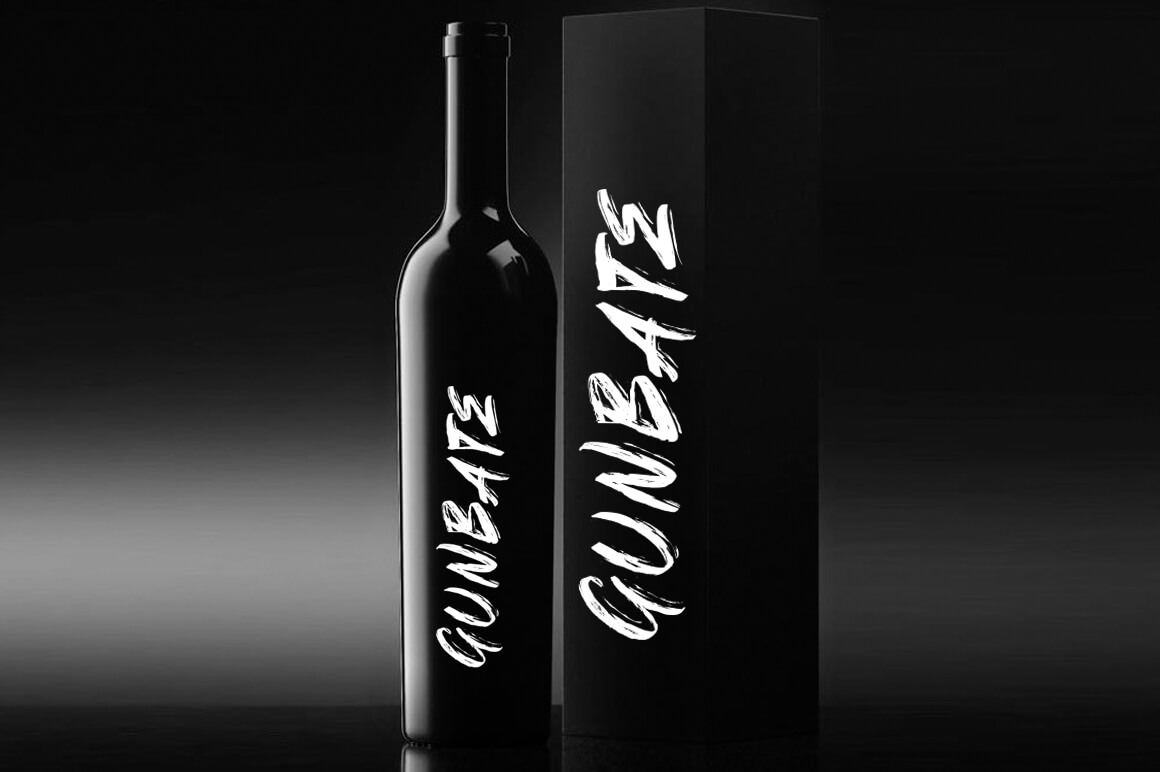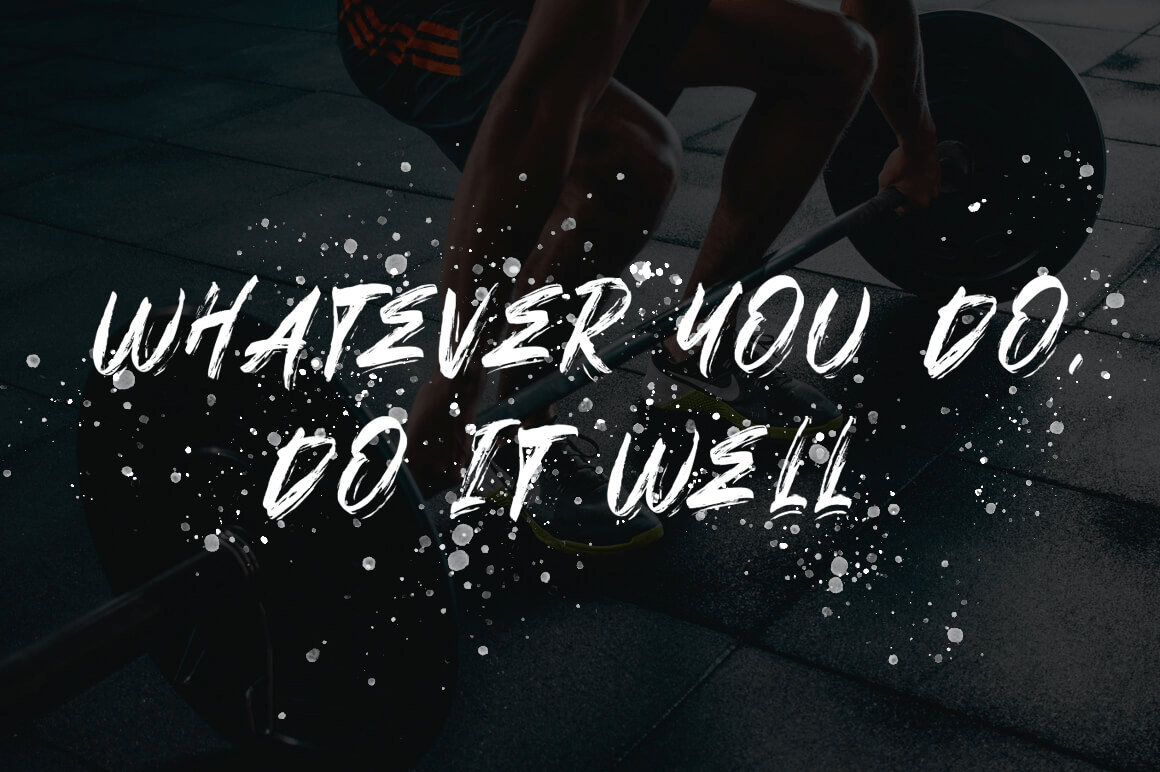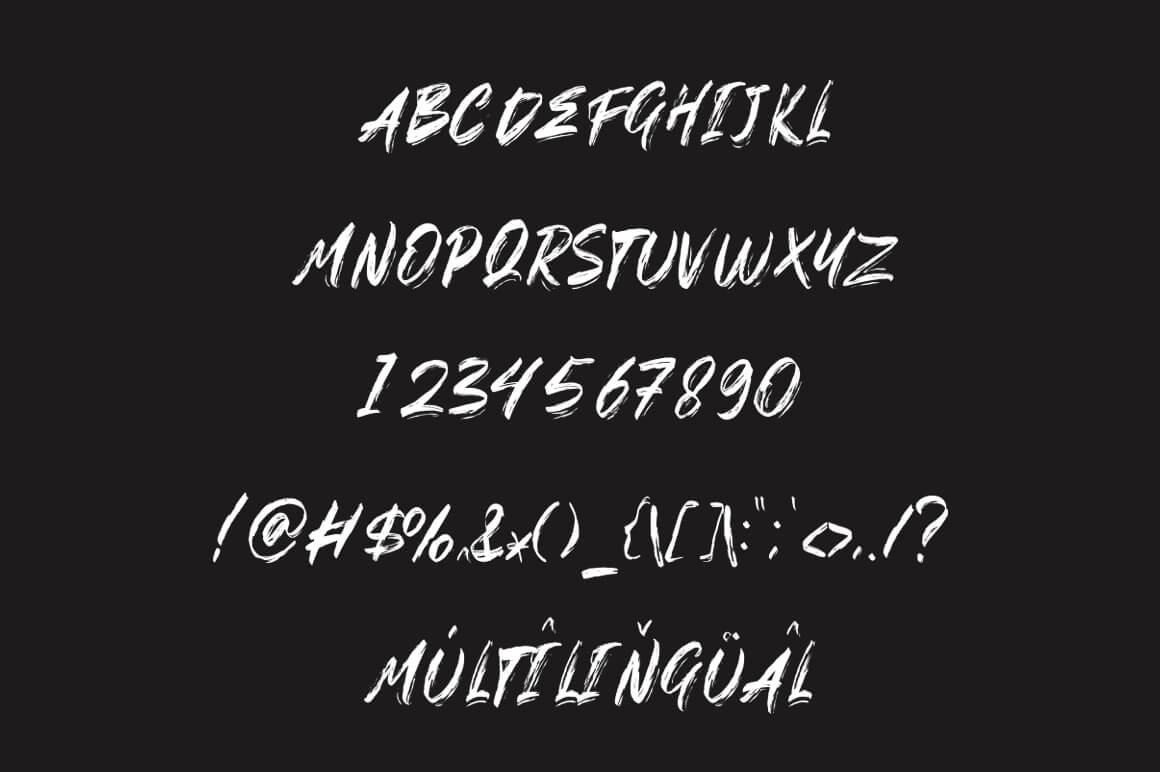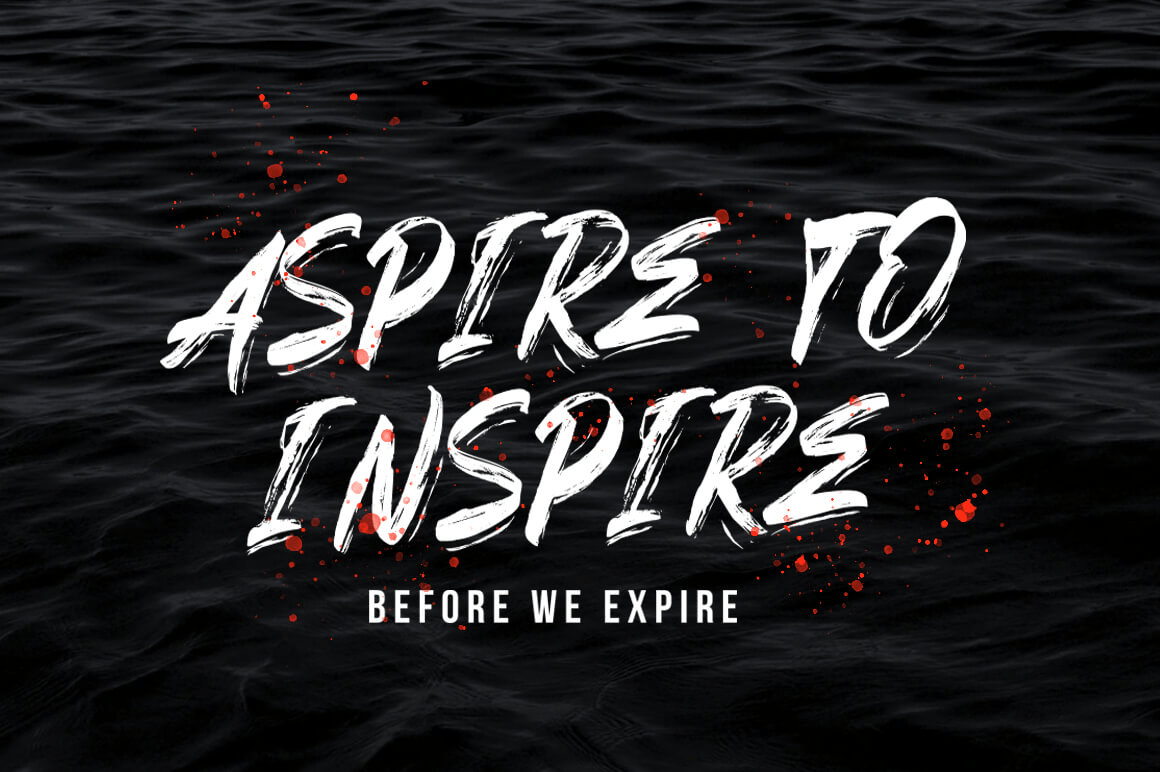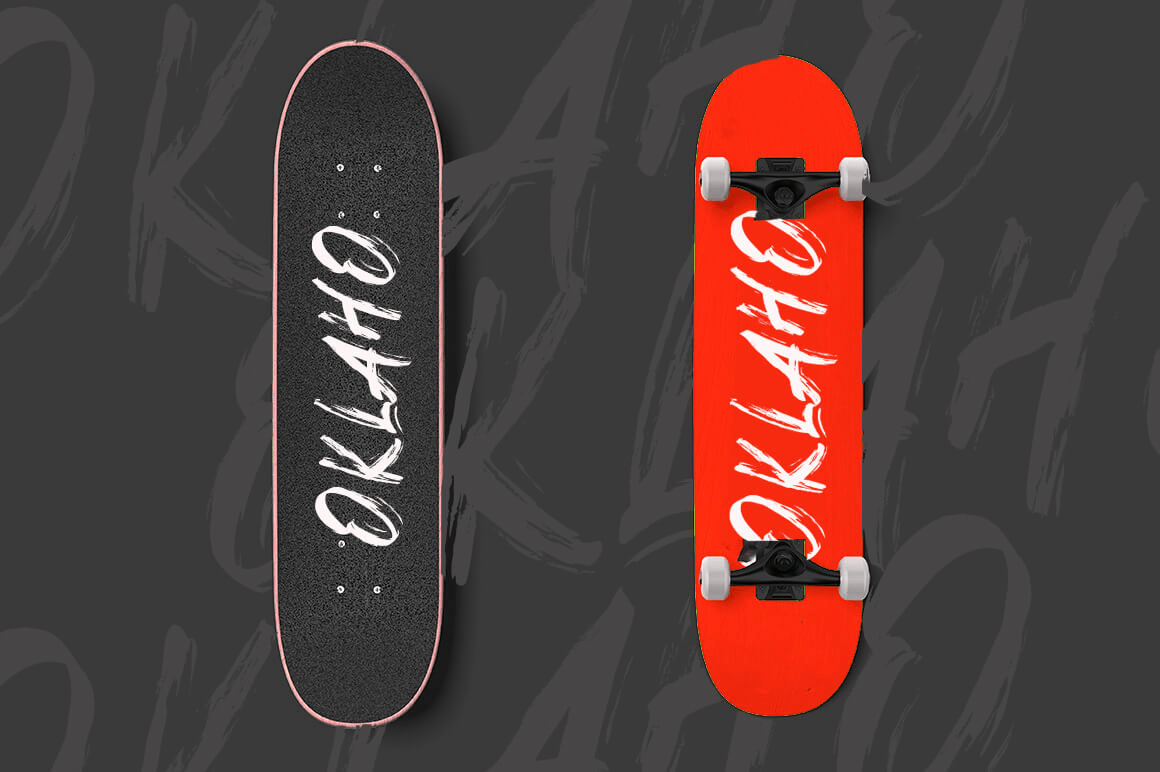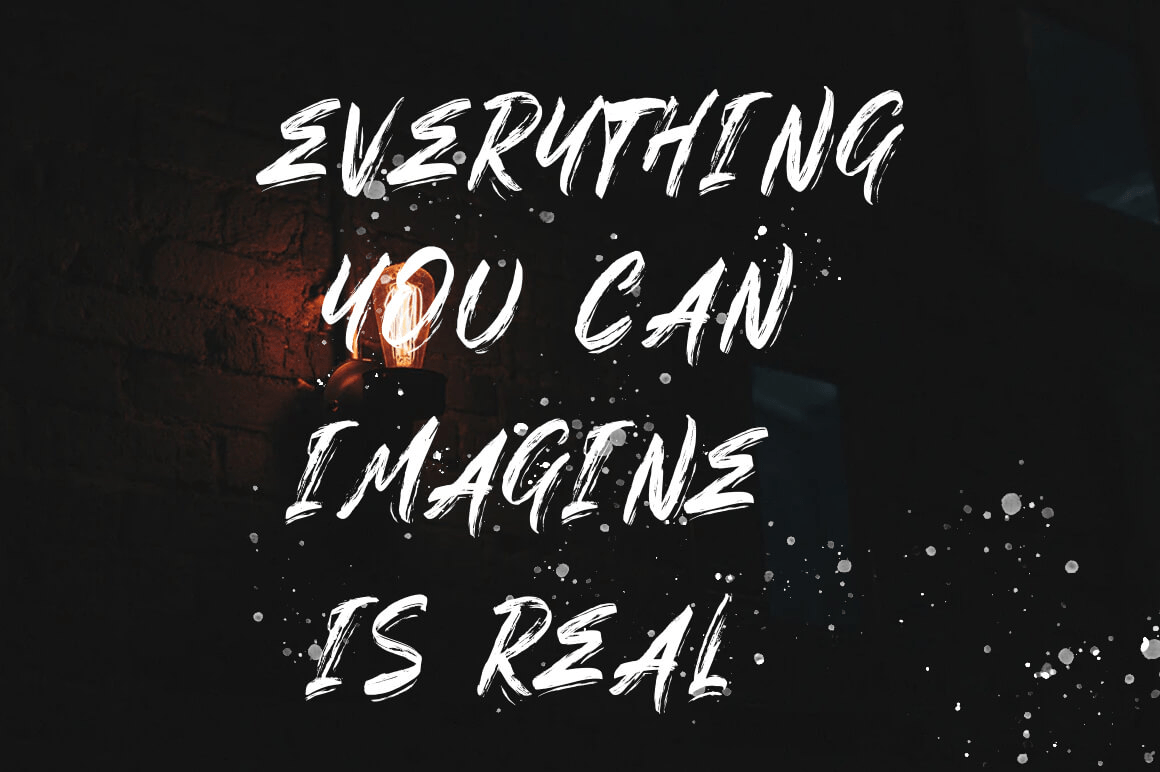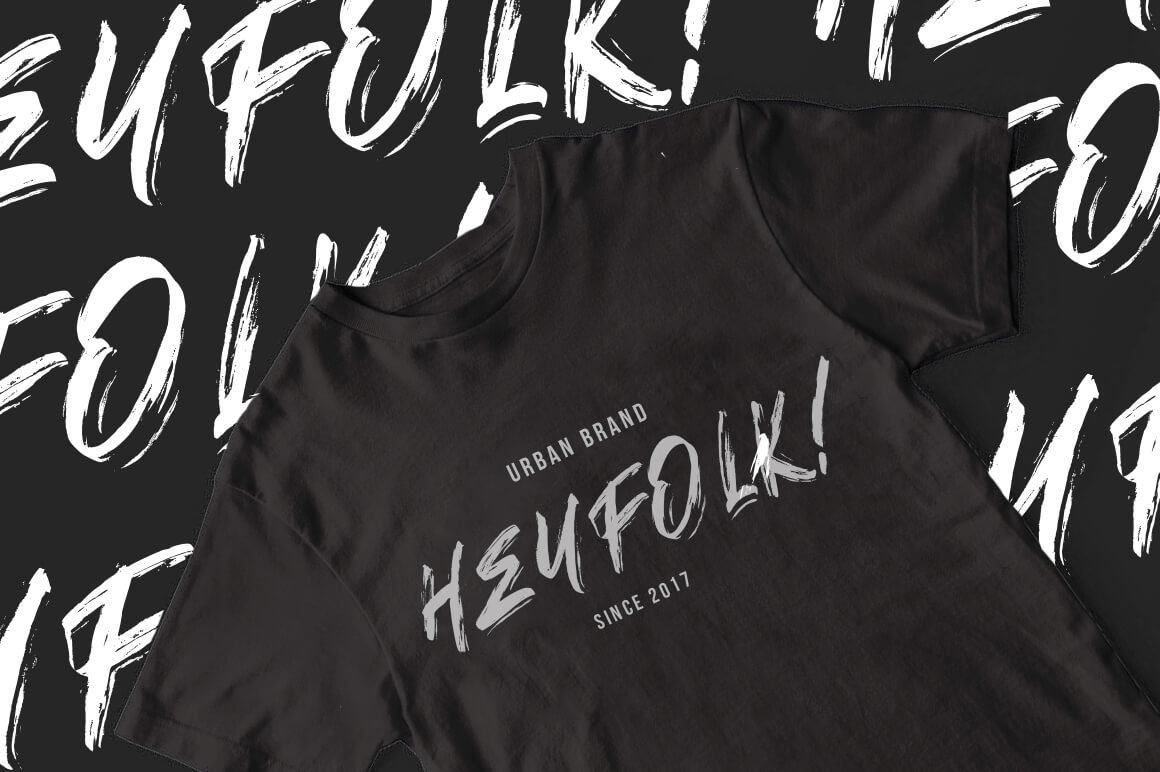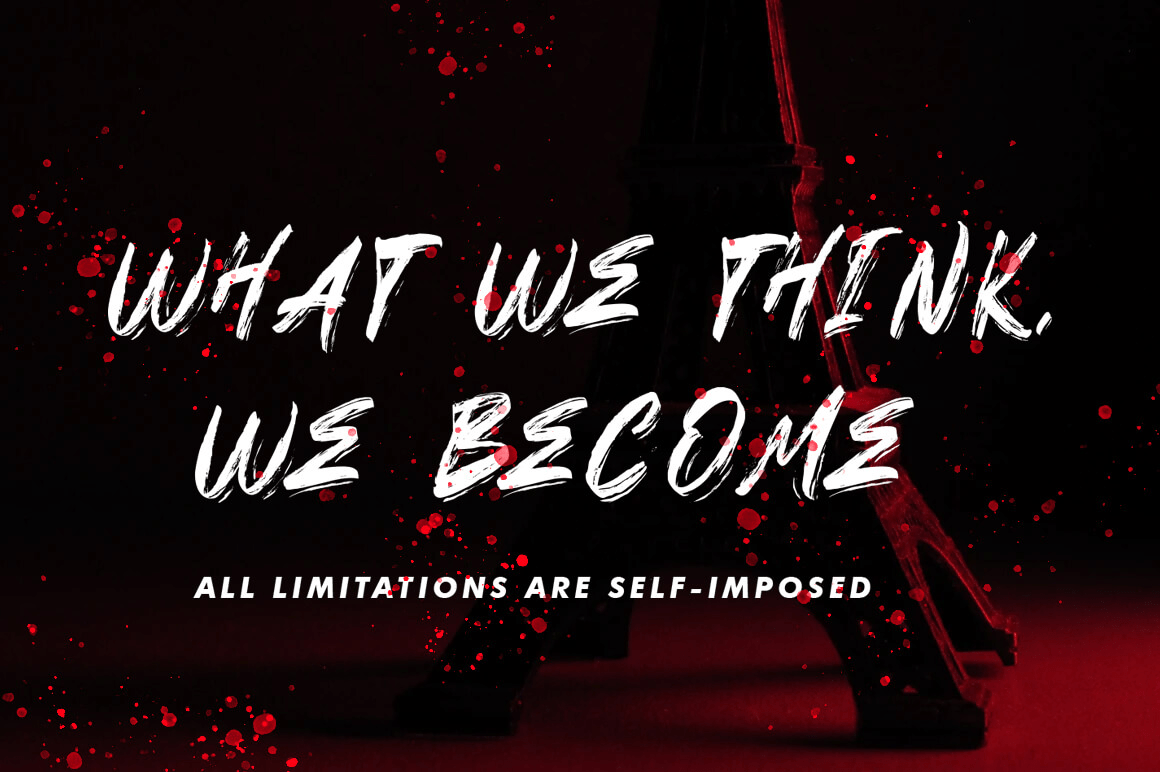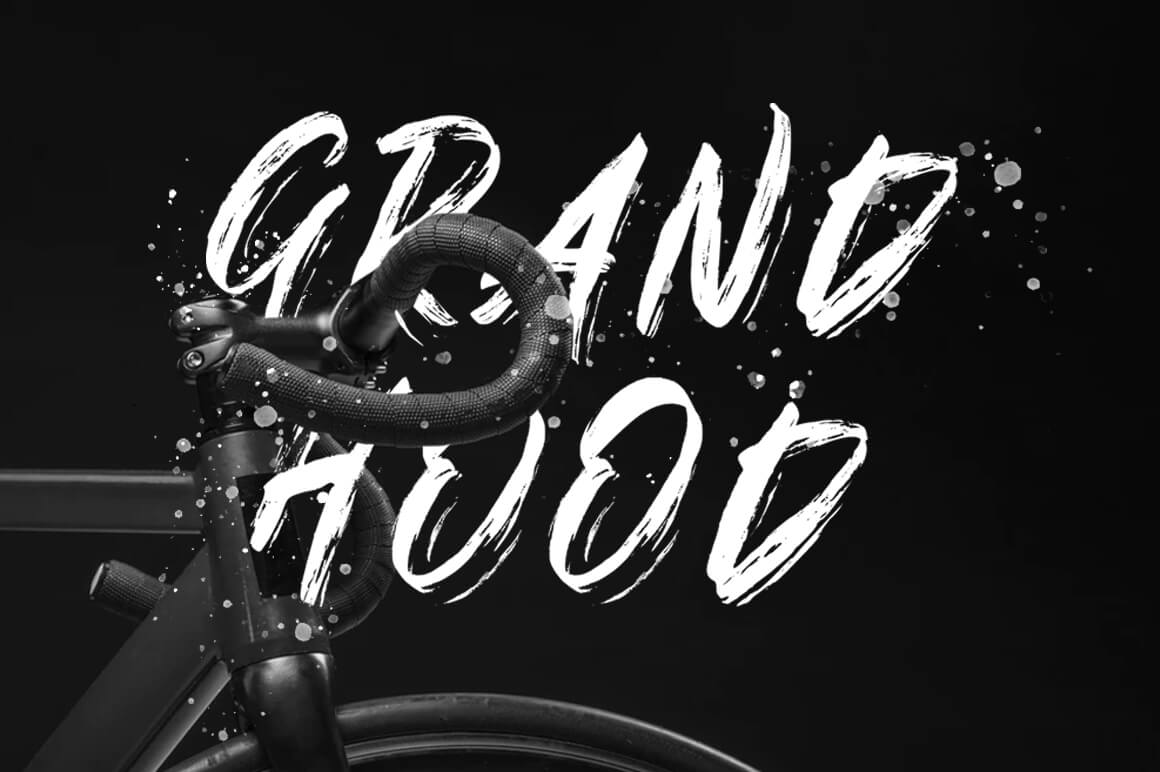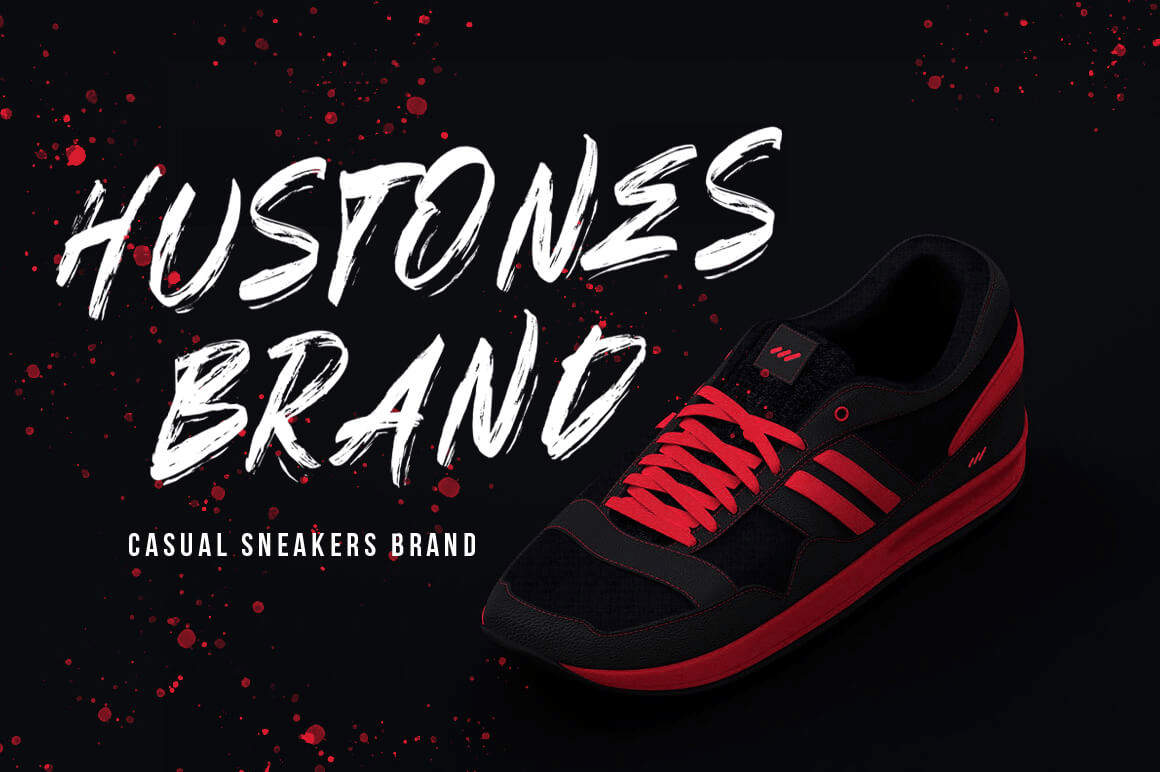
Goshbe
Font Family by Vultype Co
INTRODUCING Goshbe Brush Font! Goshbe is a bursting street-wise brush font, with extra attention to quick strokes and sharp details. It's ideal for logos, apparel, T-shirts, hoodies, quotes, product packaging, or anything which needs a typographic turbo-boost. ,
Made carefully to create the perfect texture and suitable for each of your projects, it's also great for logotype, branding design, logo design, digital lettering arts, T-shirt/apparel, poster, magazine, signs, advertising design, and any vintage design needs.